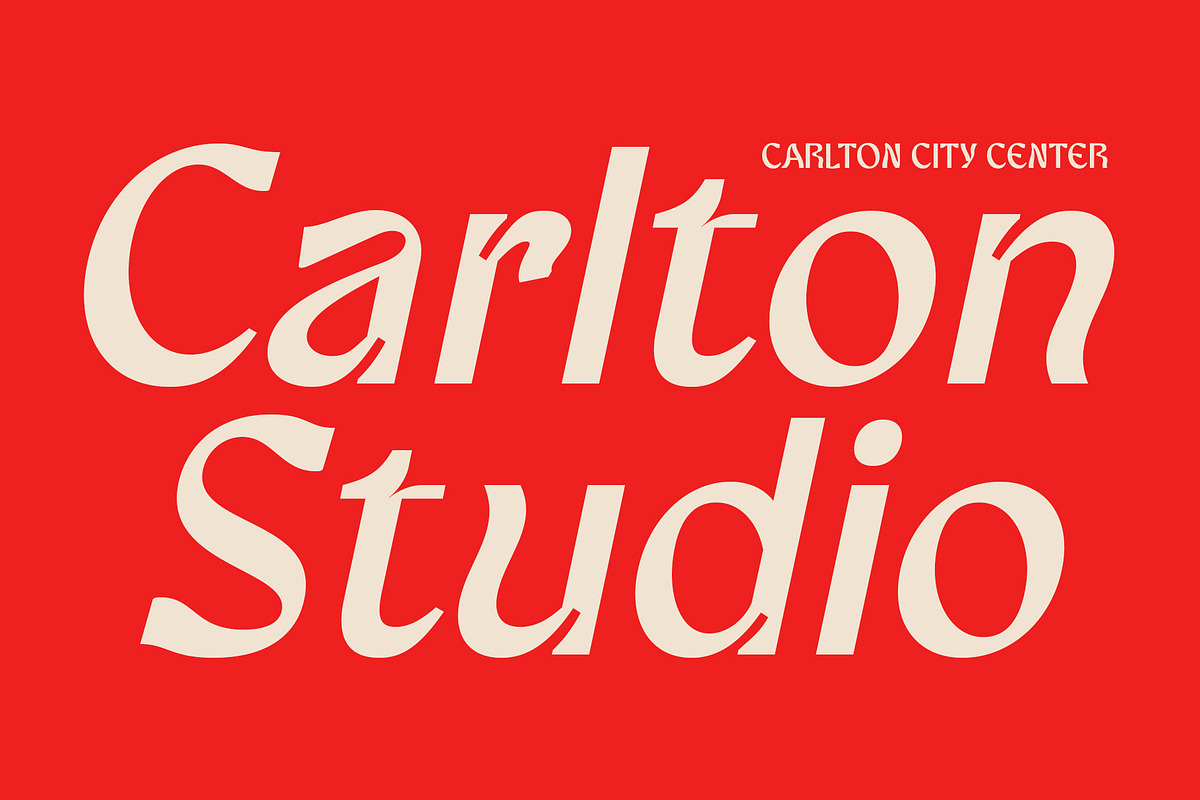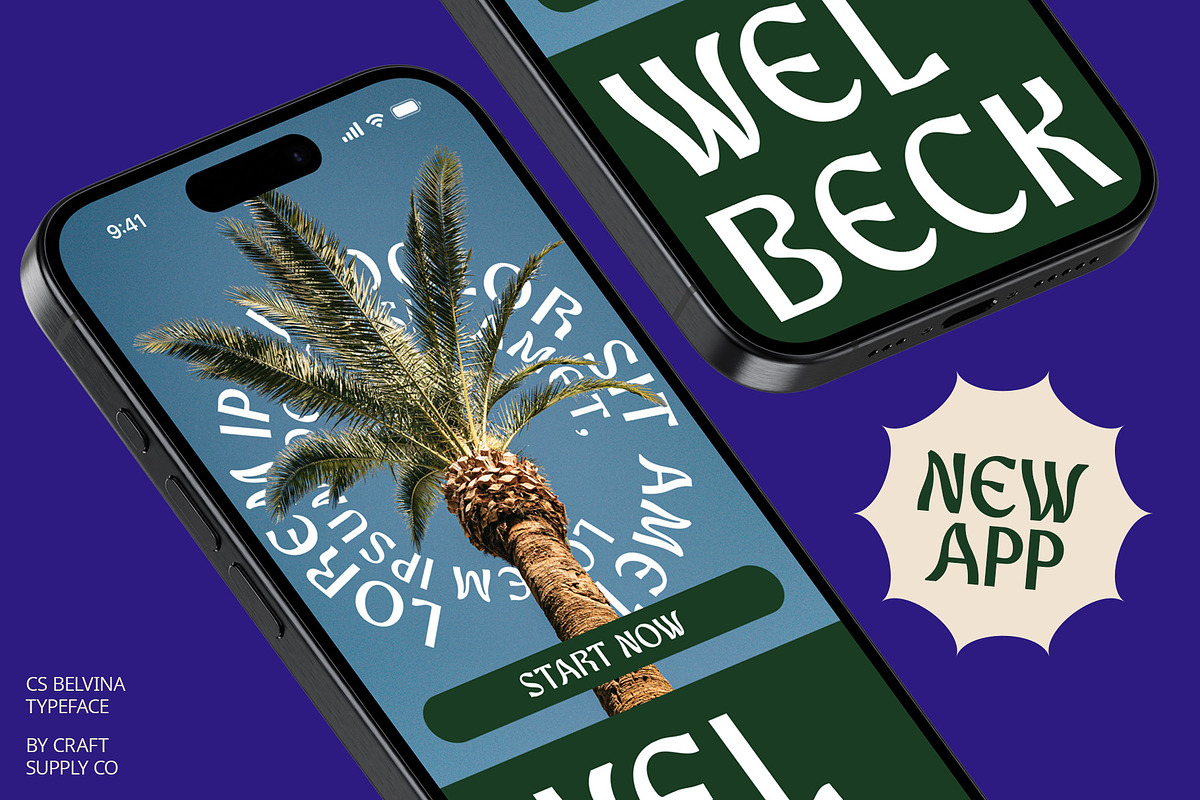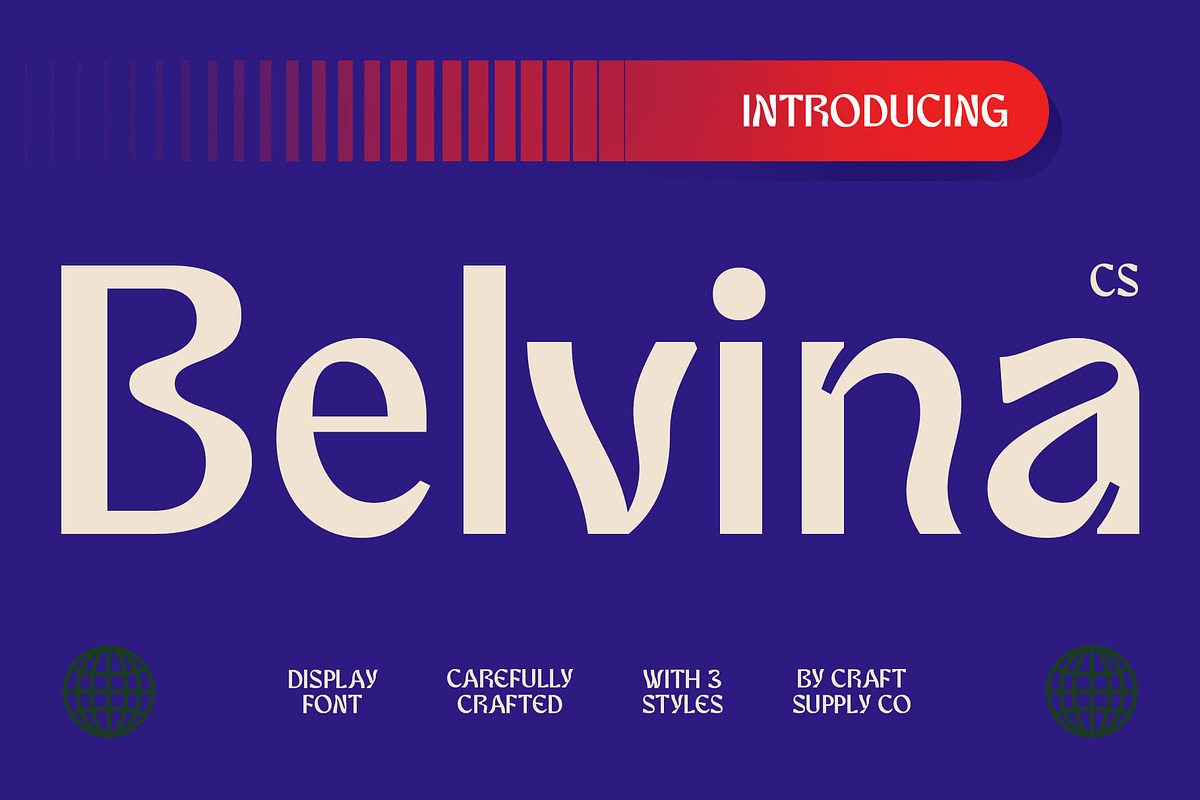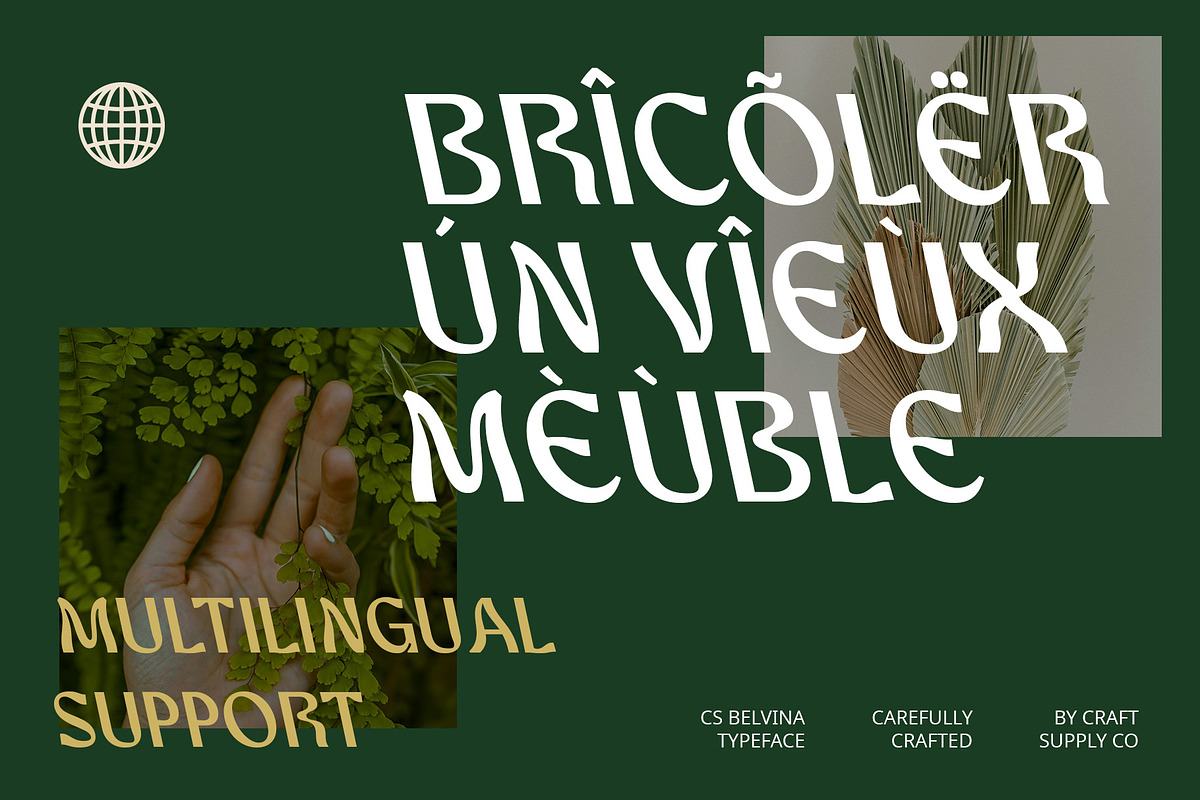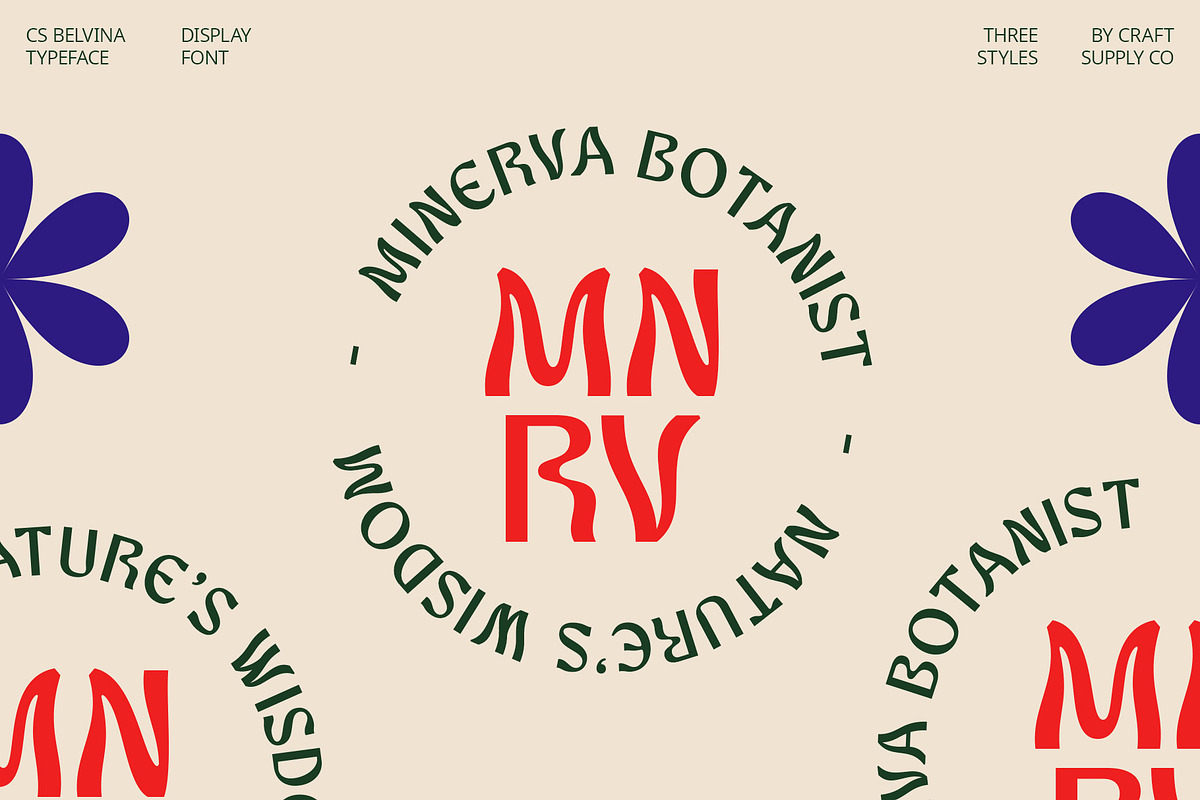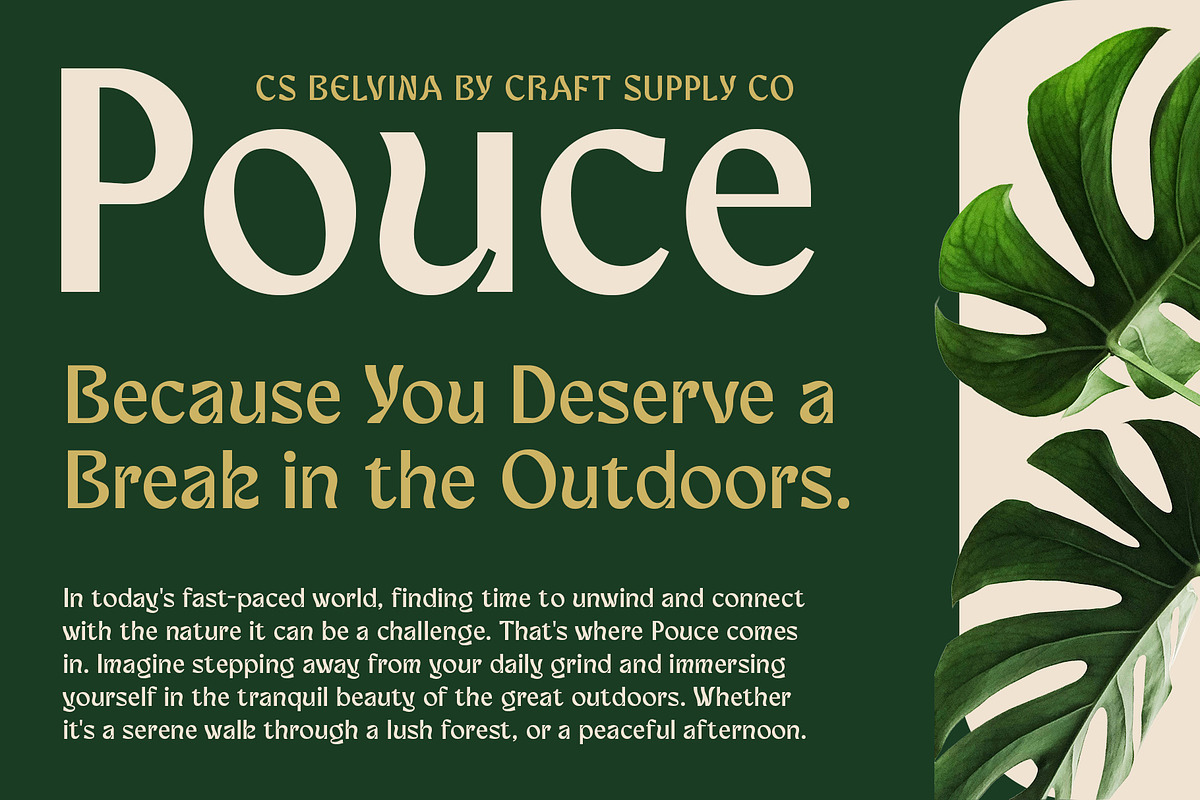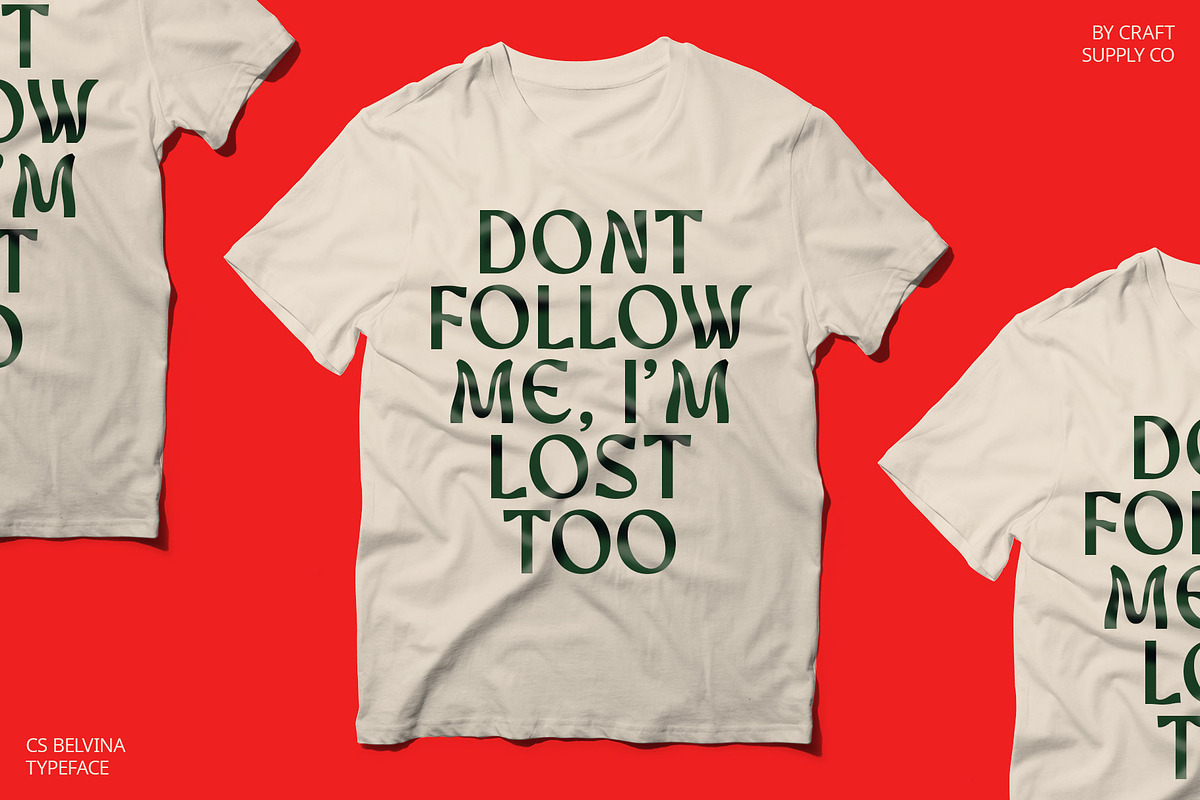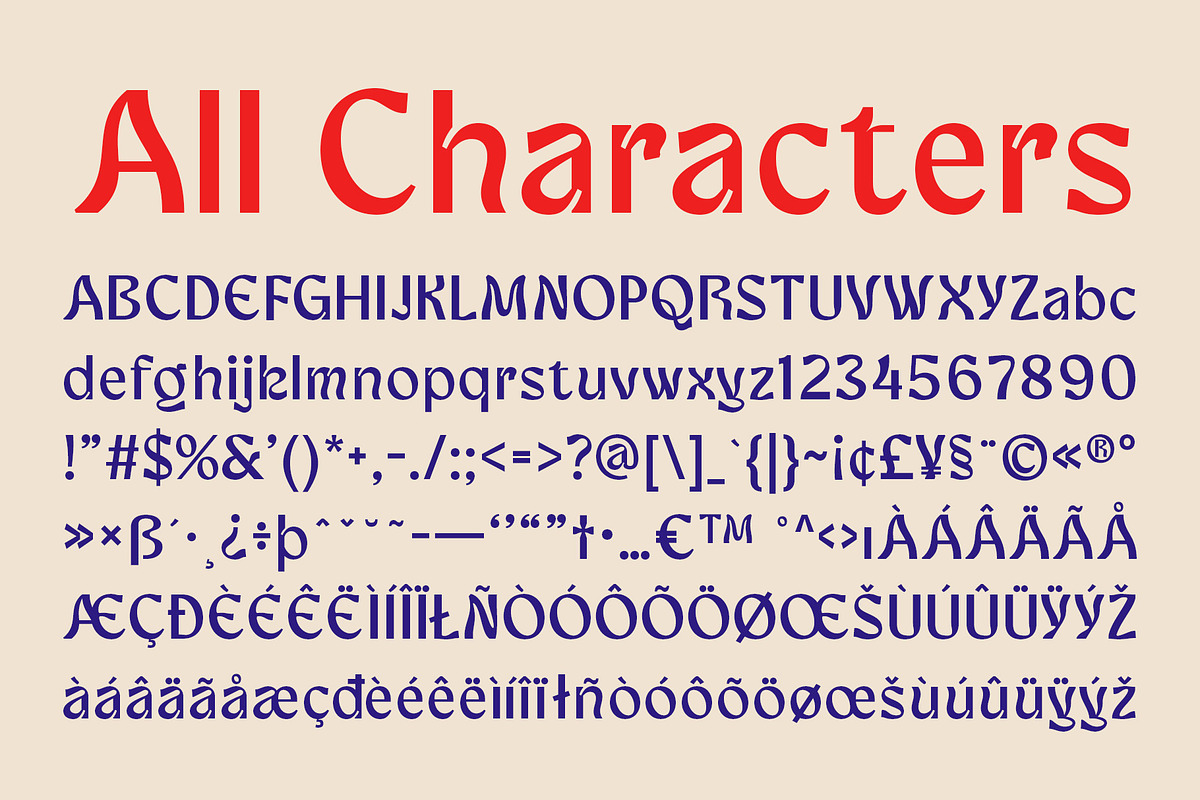
CS Belvina – Psychedelic Font
CS Belvina – Psychedelic Font: Dynamic and Artistic Display Modern Font
Explore Visual Creativity with Psychedelic Style
CS Belvina is a display modern font with a psychedelic style, offering a futuristic and experimental look that inspires visual creativity. This font features bold lines and flowing design elements, creating a dynamic and artistic impression ideal for projects that aim to highlight uniqueness in graphic design, posters, and promotional materials.
Bold and Flowing Design Elements
The bold lines and flowing design elements of CS Belvina contribute to its dynamic visual appeal. Each character is crafted to embody the psychedelic aesthetic, ensuring that your designs stand out with a sense of movement and artistic expression.
Ideal for Experimental Projects
Perfect for projects that explore visual creativity, CS Belvina excels in delivering a futuristic and experimental vibe. Whether used for graphic design, posters, or promotional materials, this font adds a touch of uniqueness and innovation to every typographic composition.
Make an Artistic Statement
Choose CS Belvina to make an artistic statement in your designs with its psychedelic style and dynamic design elements. This font promises to enhance visual creativity and create a lasting impression with its bold, flowing, and experimental characteristics.